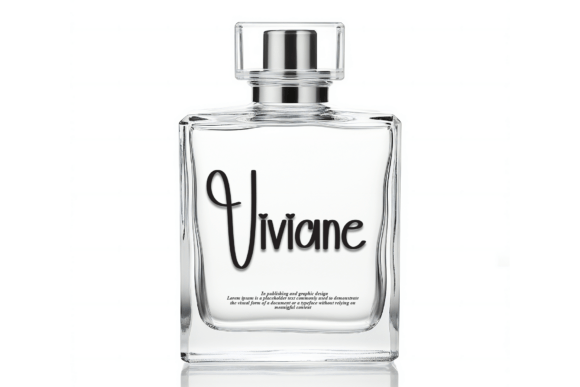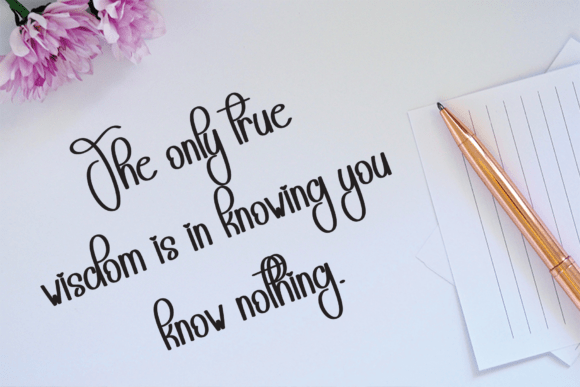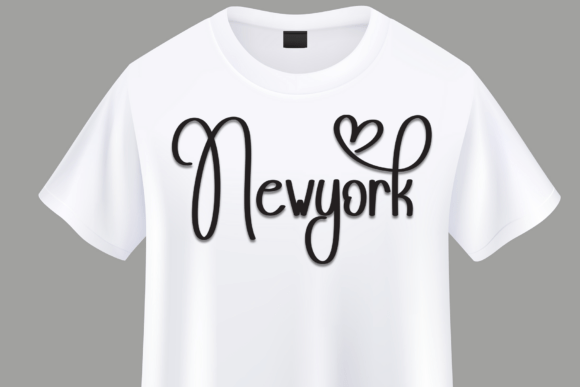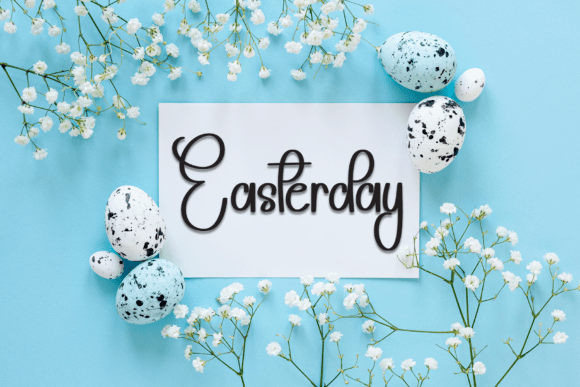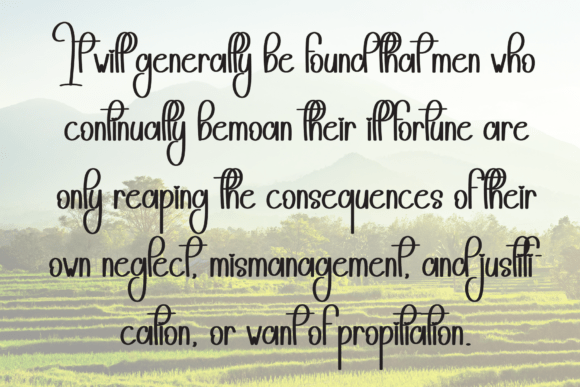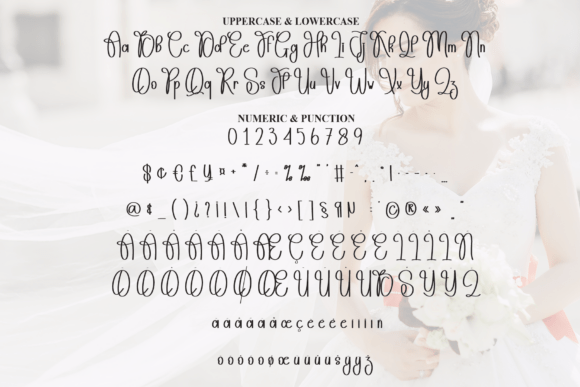
Bride Font: The Perfect Addition to Your Design Projects
In the world of typography, fonts play a crucial role in conveying the tone and personality of a brand or design. When it comes to creating a warm and inviting aesthetic, the Bride font is an excellent choice. Designed to bring clarity and approachability to your projects, this casual and neat display font is perfect for designers and crafters looking to add a touch of elegance to their work.
What is Bride Font?
Bride is a thoughtfully crafted display font that boasts a clean structure and a friendly demeanor. Its balanced letterforms are designed to provide exceptional readability, making it an ideal choice for a wide range of applications, from branding and headlines to everyday designs. The font’s neat and organized appearance ensures that your message is conveyed with clarity and precision, making it perfect for designers who want to create a lasting impression.
Key Features of Bride Font
• Clean Structure: The Bride font features a clean and organized structure that provides exceptional readability and makes it easy to read.
• Approachable Style: The font’s friendly and approachable style makes it perfect for creating a warm and inviting aesthetic.
• Balanced Letterforms: The balanced letterforms of the Bride font provide a charming and genuine feel to your designs.
• Versatility: The font’s versatility makes it suitable for a wide range of applications, from branding and headlines to everyday designs.
Why Choose Bride Font?
There are several reasons why designers and crafters should consider adding the Bride font to their collection. Here are a few:
• Warmth and Clarity: The Bride font is designed to bring warmth and clarity to your projects, making it perfect for creating a lasting impression.
• Ease of Use: The font’s clean structure and approachable style make it easy to use and pair with other fonts.
• Readability: The balanced letterforms of the Bride font provide exceptional readability, making it perfect for body text and headlines.
• Uniqueness: The Bride font’s unique and charming aesthetic sets it apart from other fonts, making it a great choice for designers who want to create something distinctive.
How to Use Bride Font in Your Designs
The Bride font is a versatile and easy-to-use font that can be incorporated into a wide range of design projects. Here are a few ideas:
• Branding: Use the Bride font to create a warm and inviting brand identity that reflects your company’s personality.
• Headlines: The font’s clean structure and approachable style make it perfect for creating eye-catching headlines that grab attention.
• Everyday Designs: Use the Bride font to add a touch of elegance to your everyday designs, such as social media graphics, flyers, and brochures.
Tips for Pairing Bride Font with Other Fonts
Pairing the Bride font with other fonts can create a unique and visually appealing aesthetic. Here are a few tips:
• Serif Fonts: Pair the Bride font with serif fonts, such as Times New Roman or Georgia, to create a classic and sophisticated look.
• Script Fonts: Combine the Bride font with script fonts, such as Pacifico or Great Vibes, to add a touch of elegance and whimsy.
• Display Fonts: Pair the Bride font with bold display fonts, such as Arial Black or Impact, to create a striking contrast.
In conclusion, the Bride font is a versatile and charming display font that is perfect for designers and crafters looking to add a touch of warmth and clarity to their projects. With its clean structure, approachable style, and balanced letterforms, this font is suitable for a wide range of applications, from branding and headlines to everyday designs. Whether you’re looking to create a lasting impression or simply want to add a touch of elegance to your designs, the Bride font is an excellent choice.